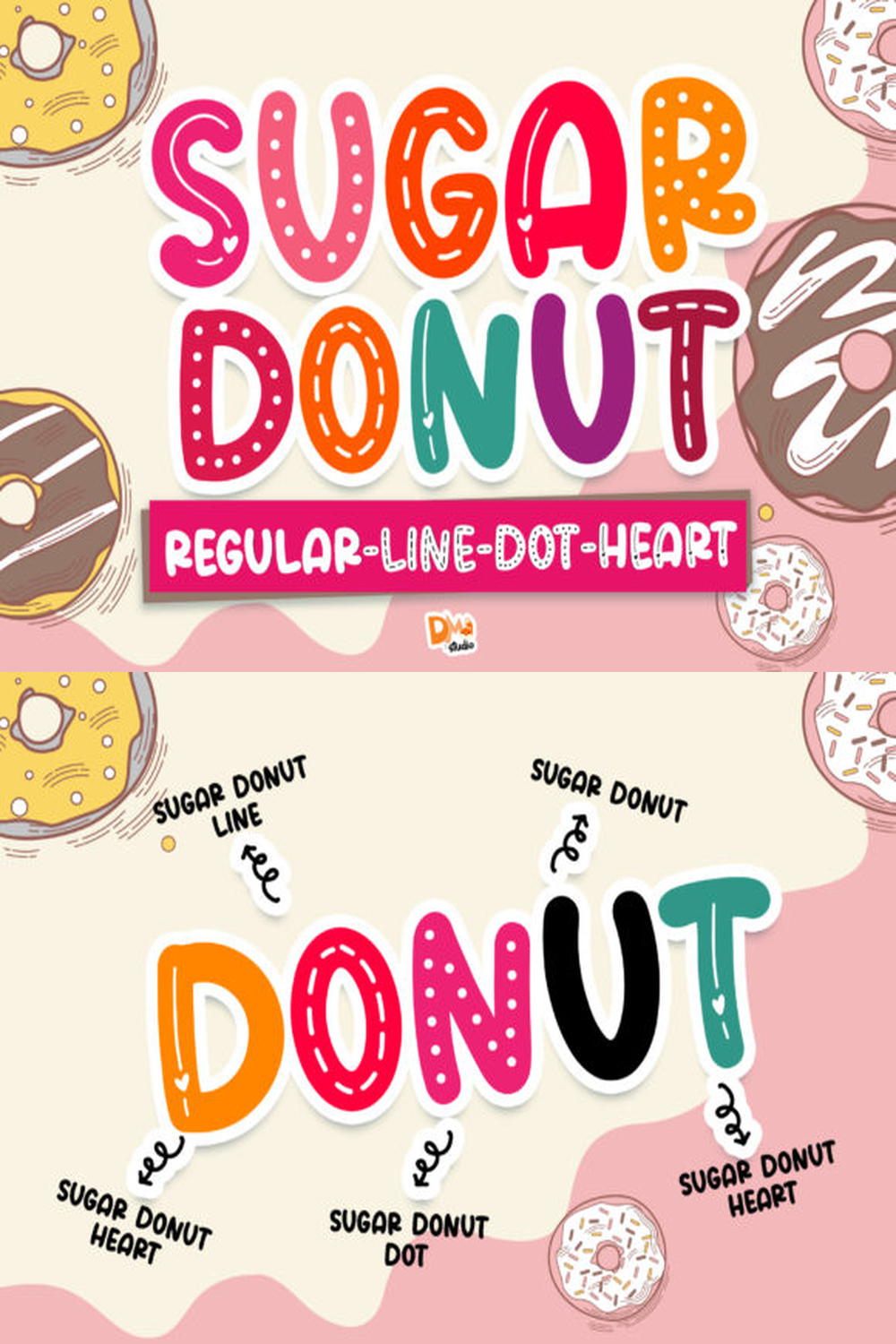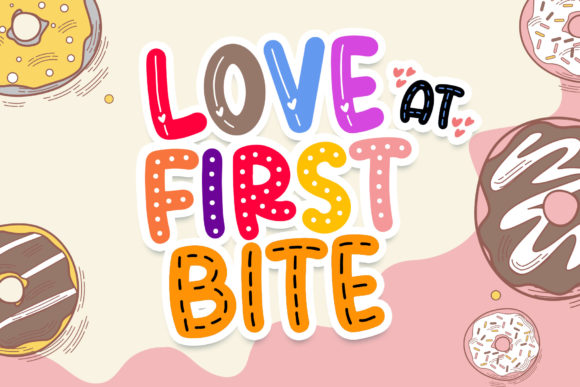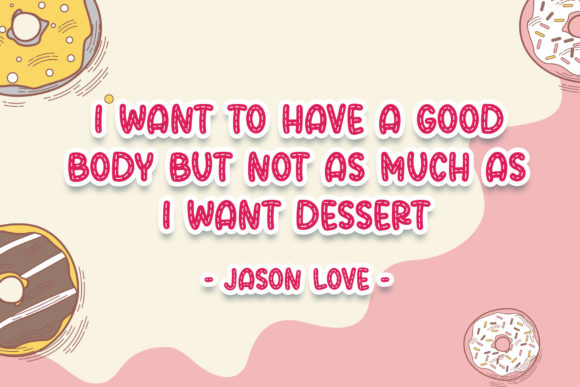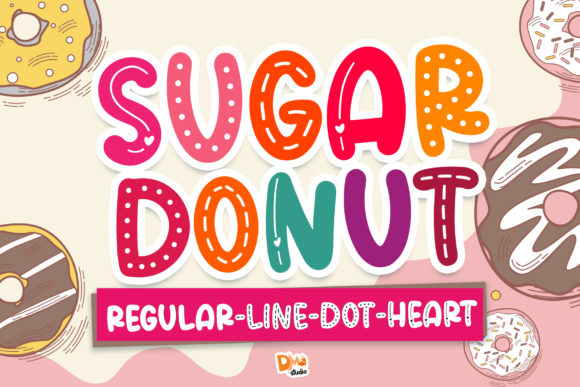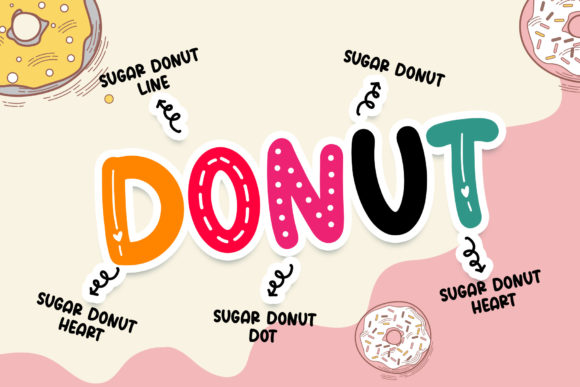
Sugar Donut Font: A Playful & Cute Display Font for Kids & Cricut Projects
About the Sugar Donut Font
Meet Sugar Donut Font, a stunning font that brings a touch of elegance and professionalism to any design. Sugar Donut is a cute and fun display font. It embodies playfulness and authenticity and is the perfect choice for any children’s activity or school project. Add this chunky lettered font to your designs and notice how it makes them come alive!
Sugar Donut Font Usage Examples